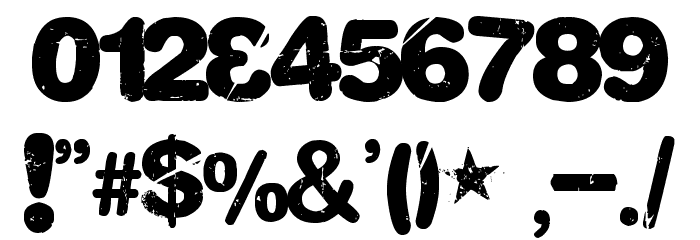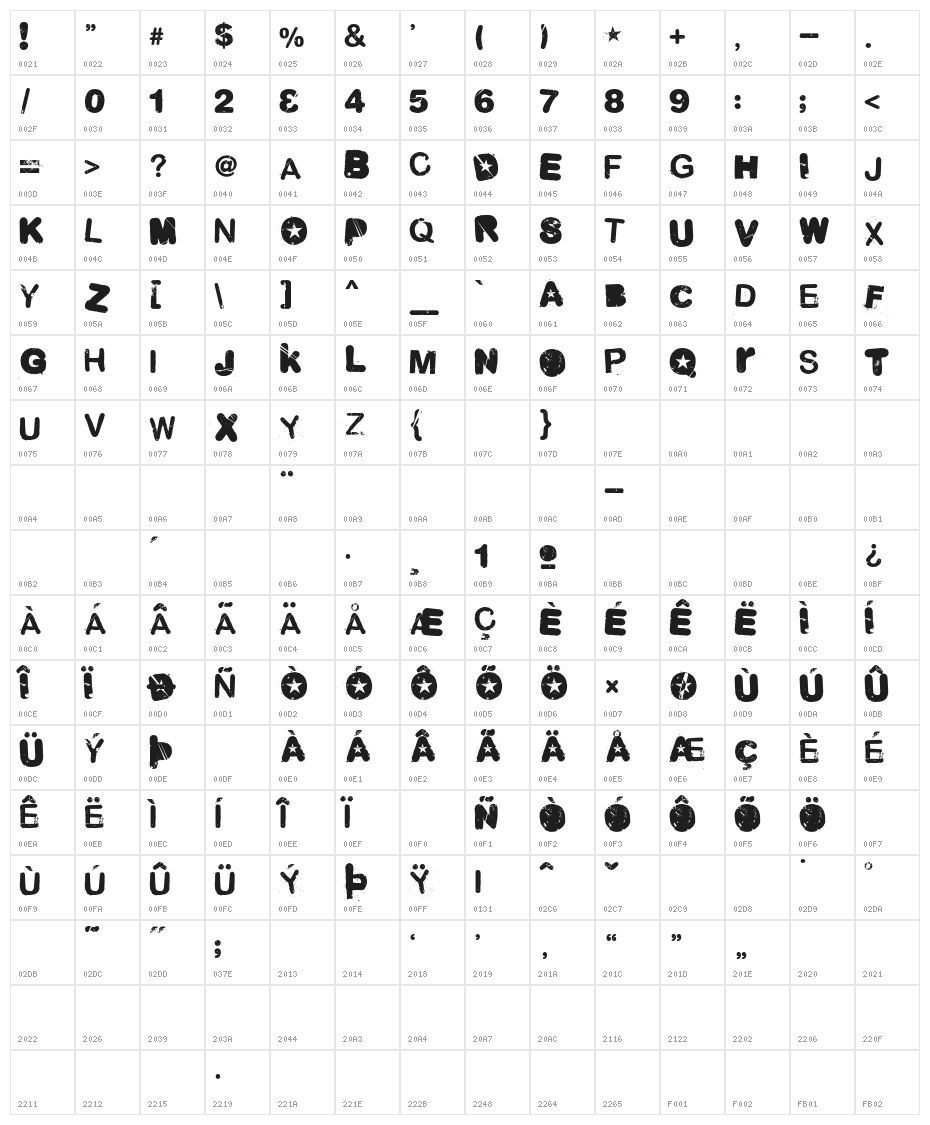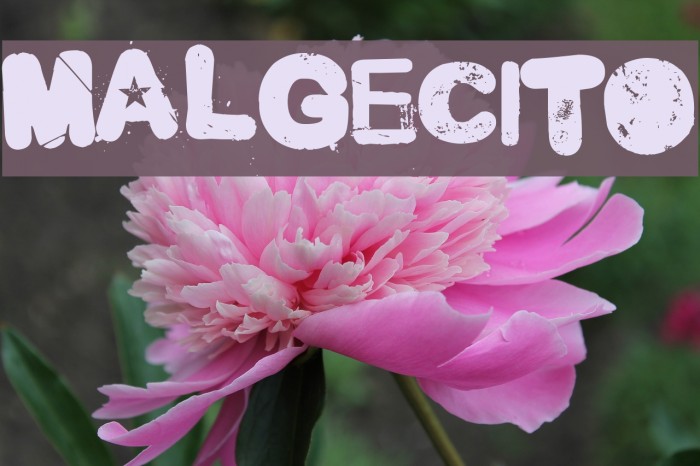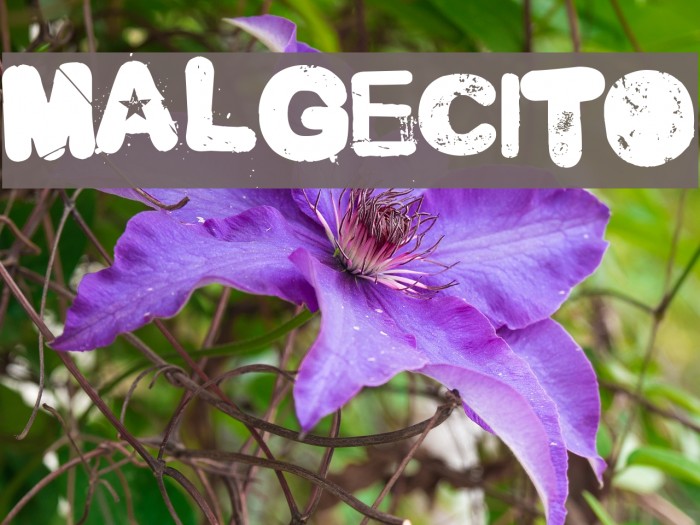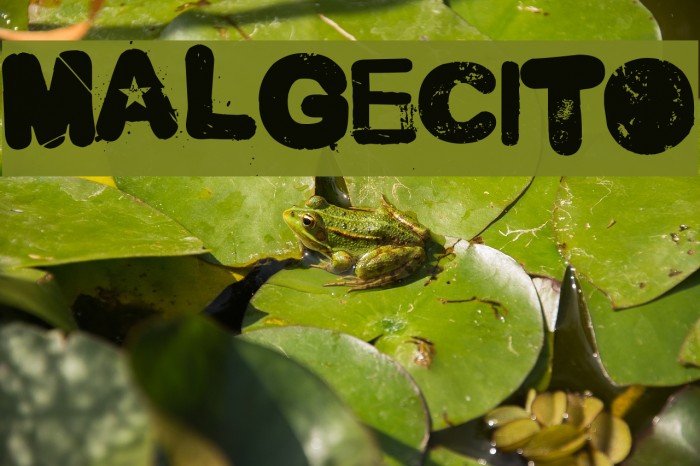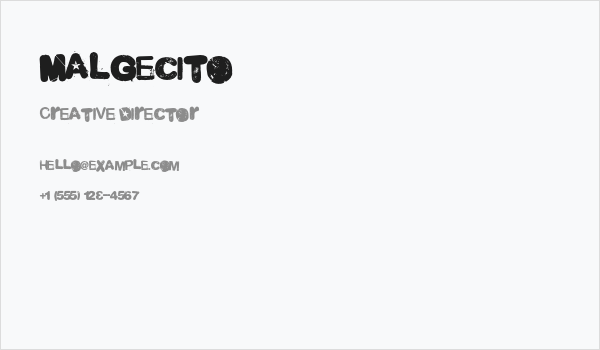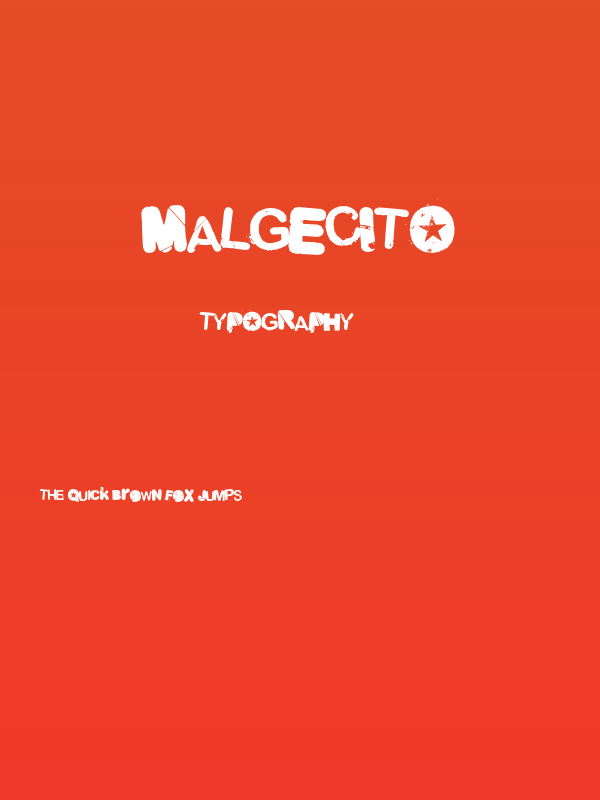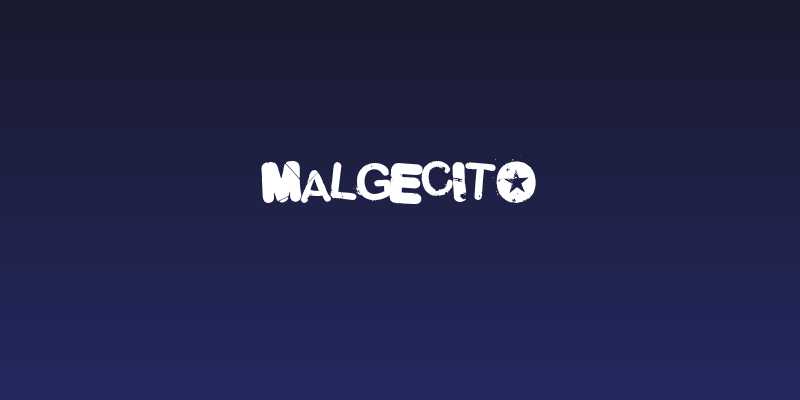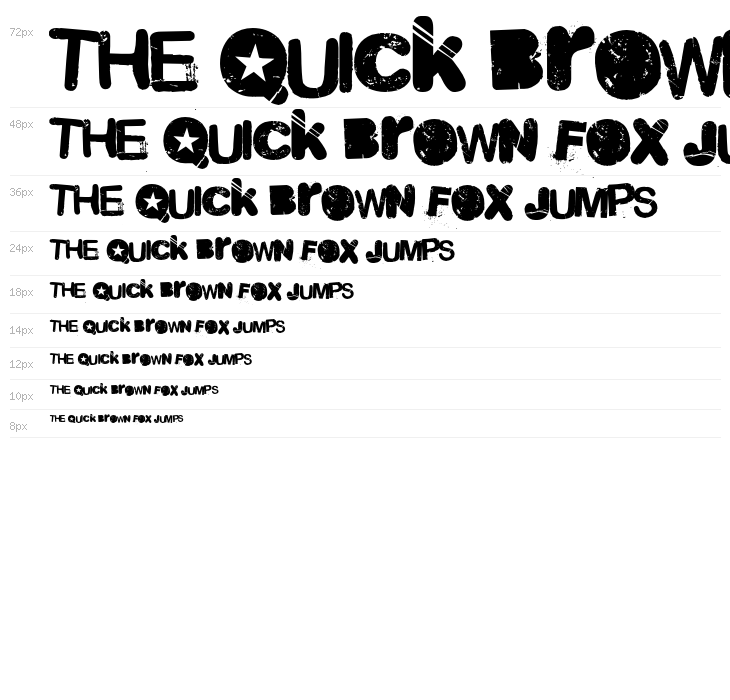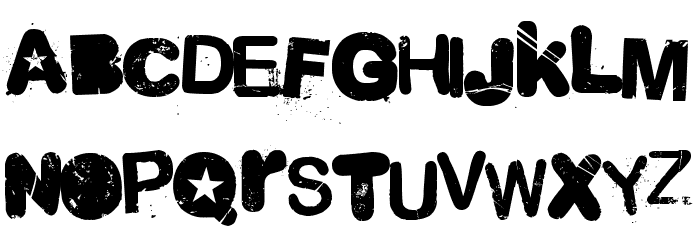
Malgecito Font
Malgecito Description
This font features a bold and distressed style, with a unique grunge texture that gives it a rugged and edgy appearance. Each character is heavily stylized, incorporating rough edges and a worn-out look, which adds to its distinctive charm. The font includes uppercase and lowercase letters, numbers, and a variety of special characters. The design is reminiscent of street art or graffiti, making it ideal for projects that require a bold and unconventional aesthetic. The star motif within some characters adds an extra layer of visual interest, enhancing its decorative appeal.
| Overall Style | Grunge, Urban, Edgy |
| Proposed Projects | Perfect for album covers, posters, streetwear branding, and urban-themed designs. |